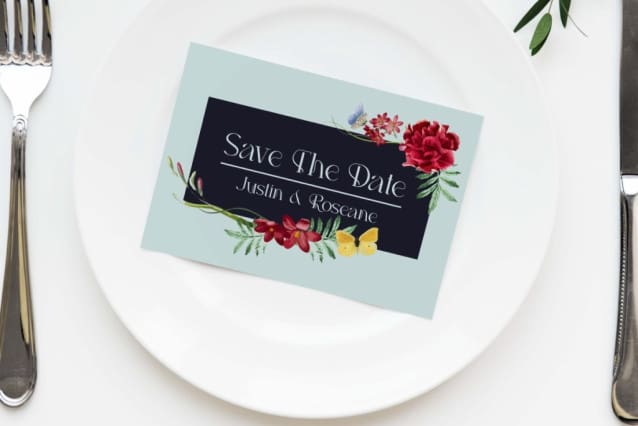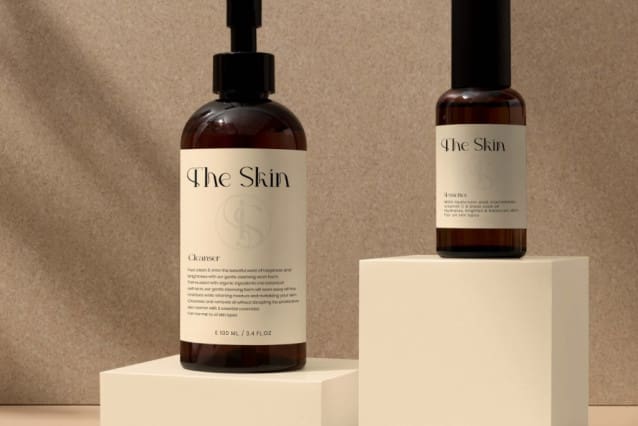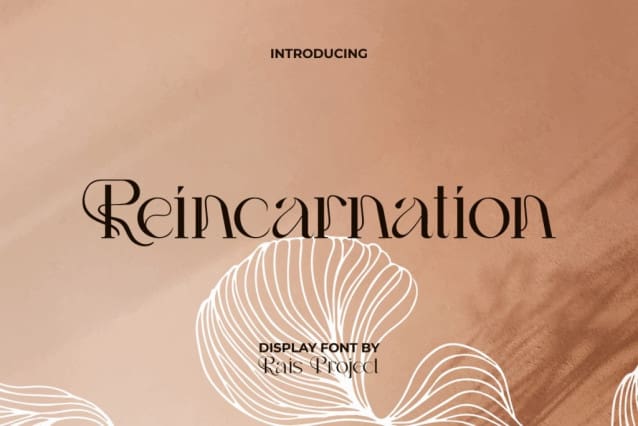
Reincarnation Font
Reincarnation Font is an aesthetic serif display font with elegant style and unique shapes. Thin lines are always synonymous with luxury, even though the appearance is as simple as this font. It will work well in many designs, such as brand image, cover, custom design, gift box, greeting card, invitation, label, menu, product packaging, quote, signage, web, and more!
Reincarnation Font includes a full set of Uppercase and Lowercase Letters, Numerals, and large range of Punctuation. This modern font will be suitable for various industries, such as advertisement, beauty product, event or wedding organizer, fashion, jewelry and accessories, photography, publishing, printing, real estate, spa and salon, etc.